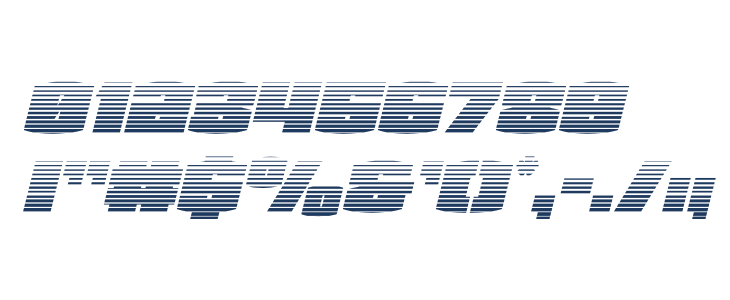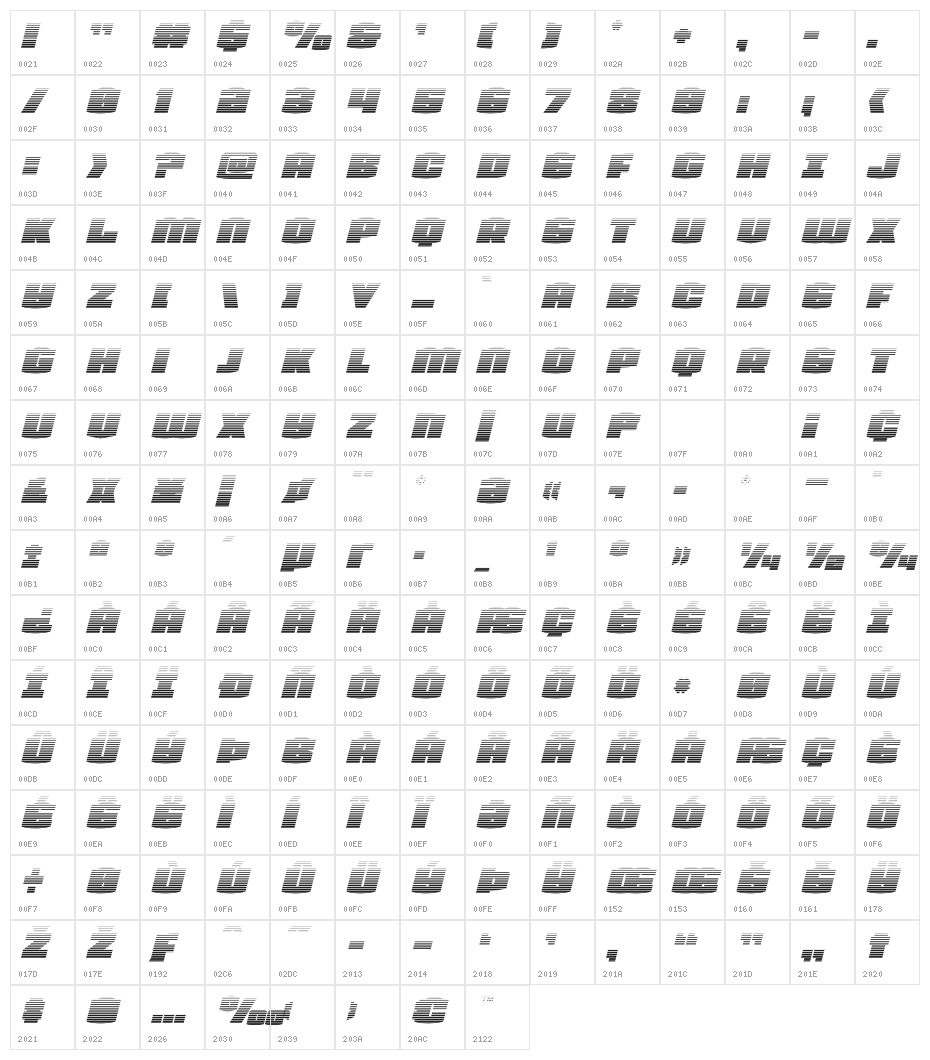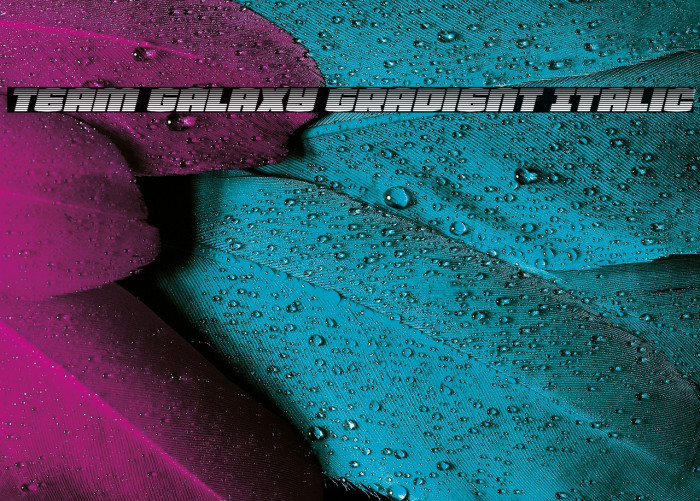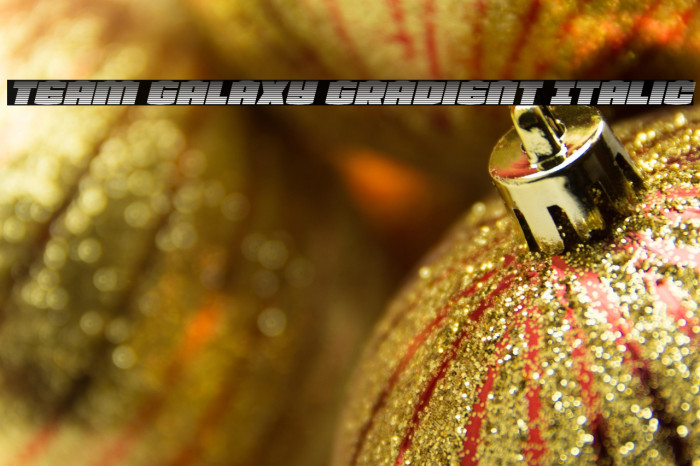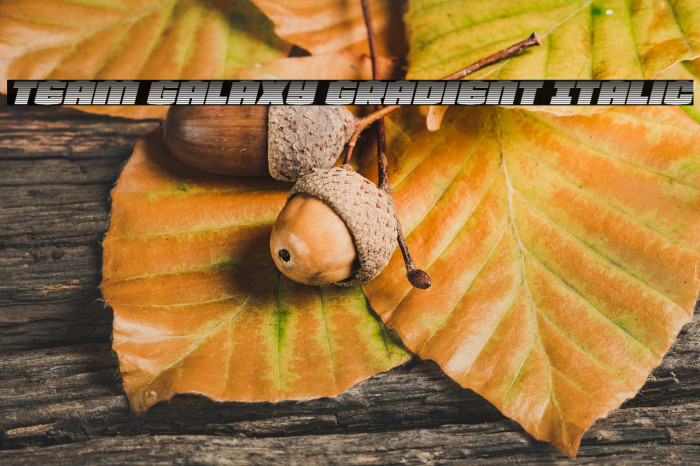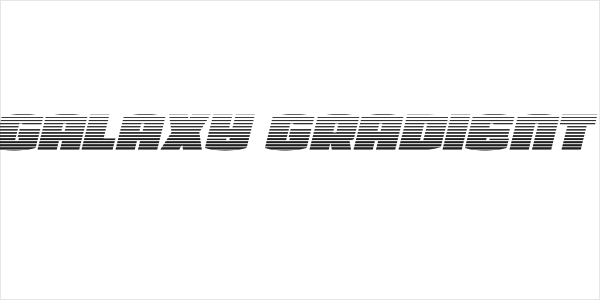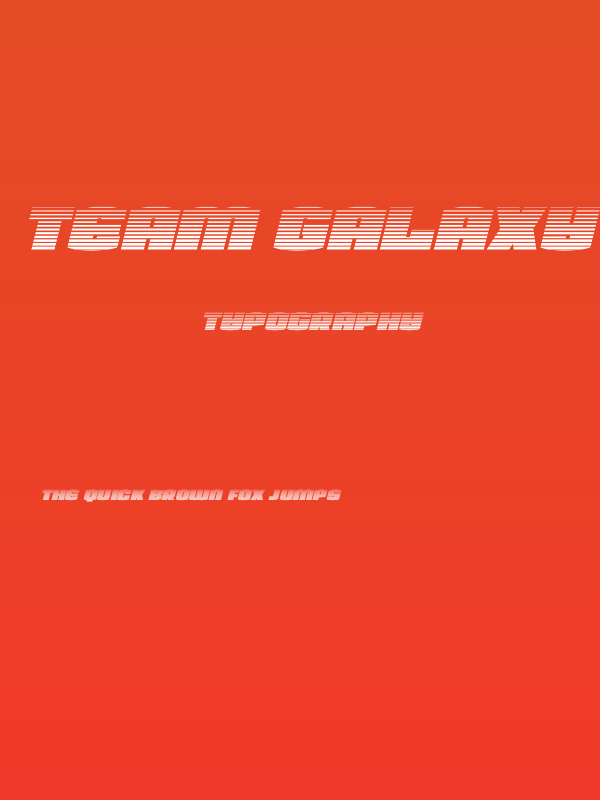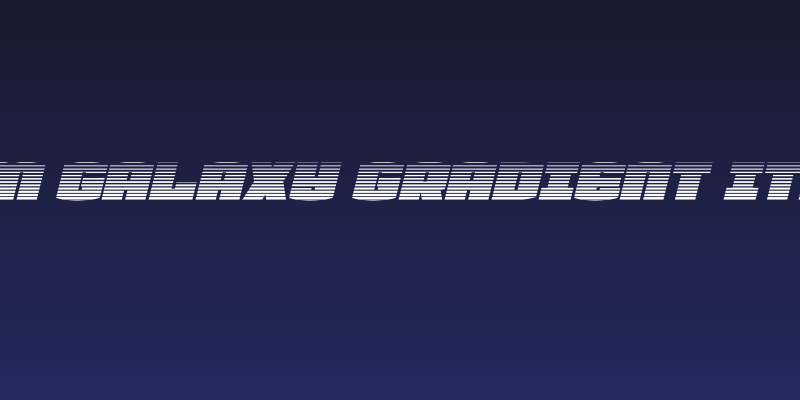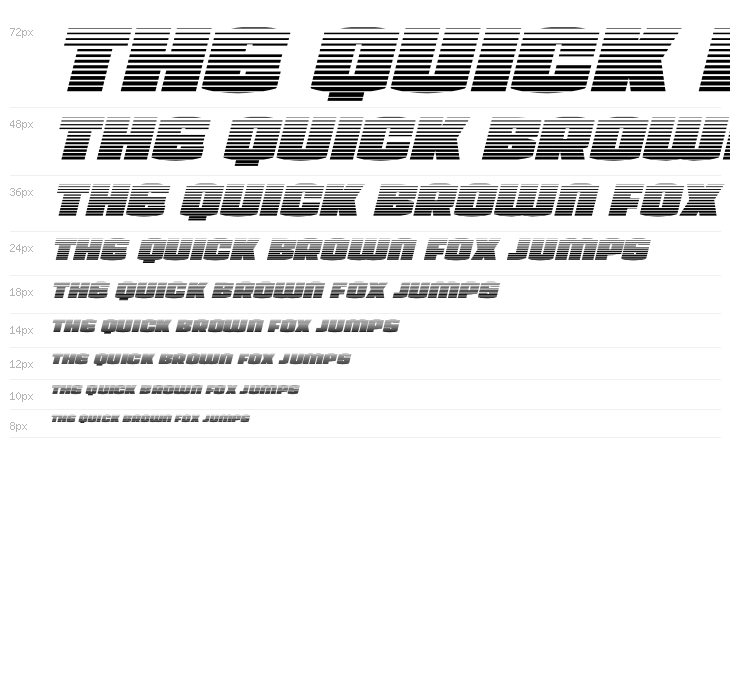
Team Galaxy Gradient Italic Font
Team Galaxy Gradient Italic Description
This font features a bold, italicized style with a distinctive gradient effect that gives it a futuristic and dynamic appearance. The characters are constructed with horizontal lines that create a sense of movement and speed, making it ideal for projects that require a modern and energetic look. The uppercase and lowercase letters maintain a consistent design, with the gradient lines providing a unique texture. The numerals and special characters follow the same stylistic approach, ensuring uniformity across all elements. This font is particularly suitable for digital and tech-related themes, where a sleek and innovative aesthetic is desired.
| Proposed Projects | Ideal for tech branding, futuristic posters, video game titles, and digital interfaces. |